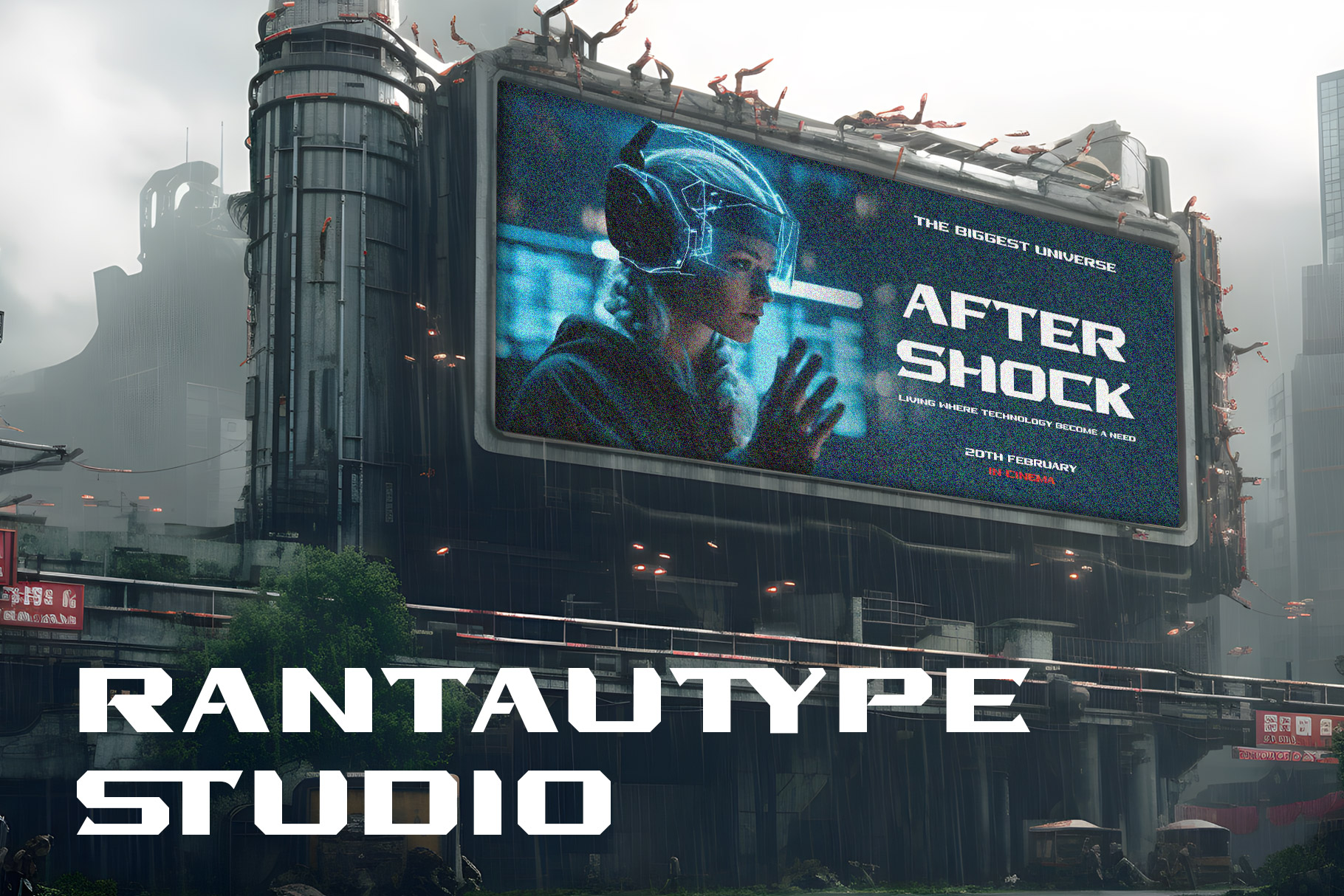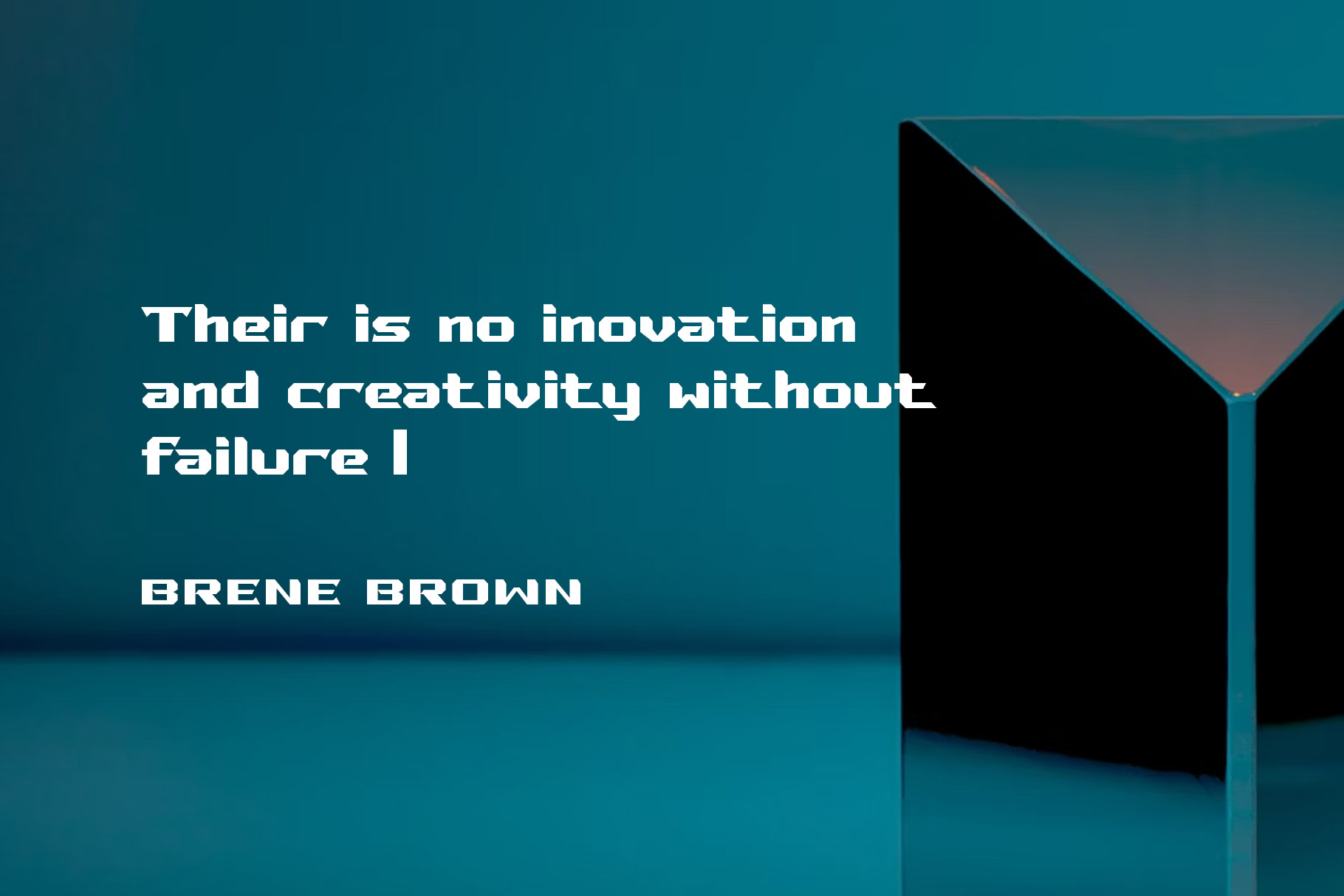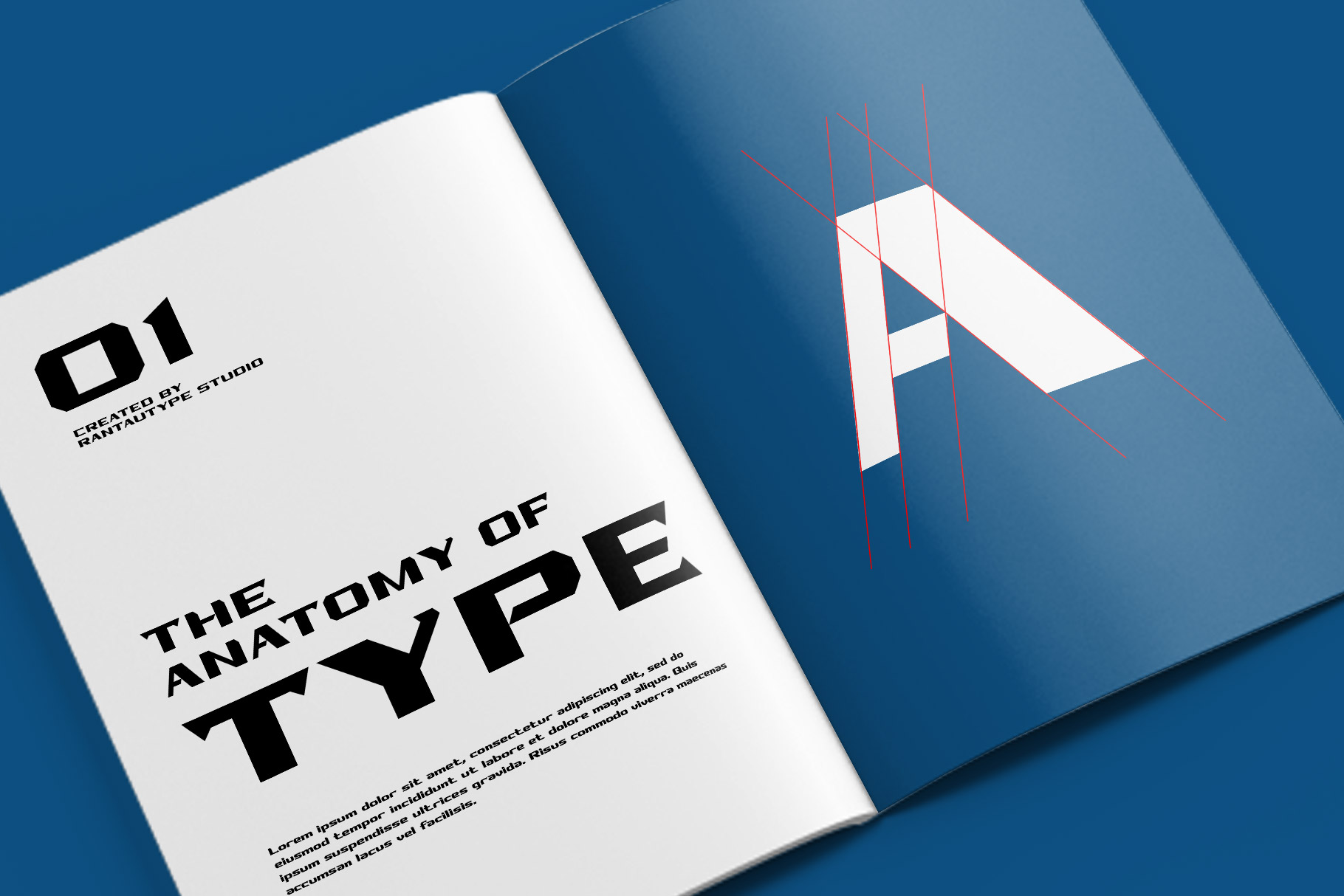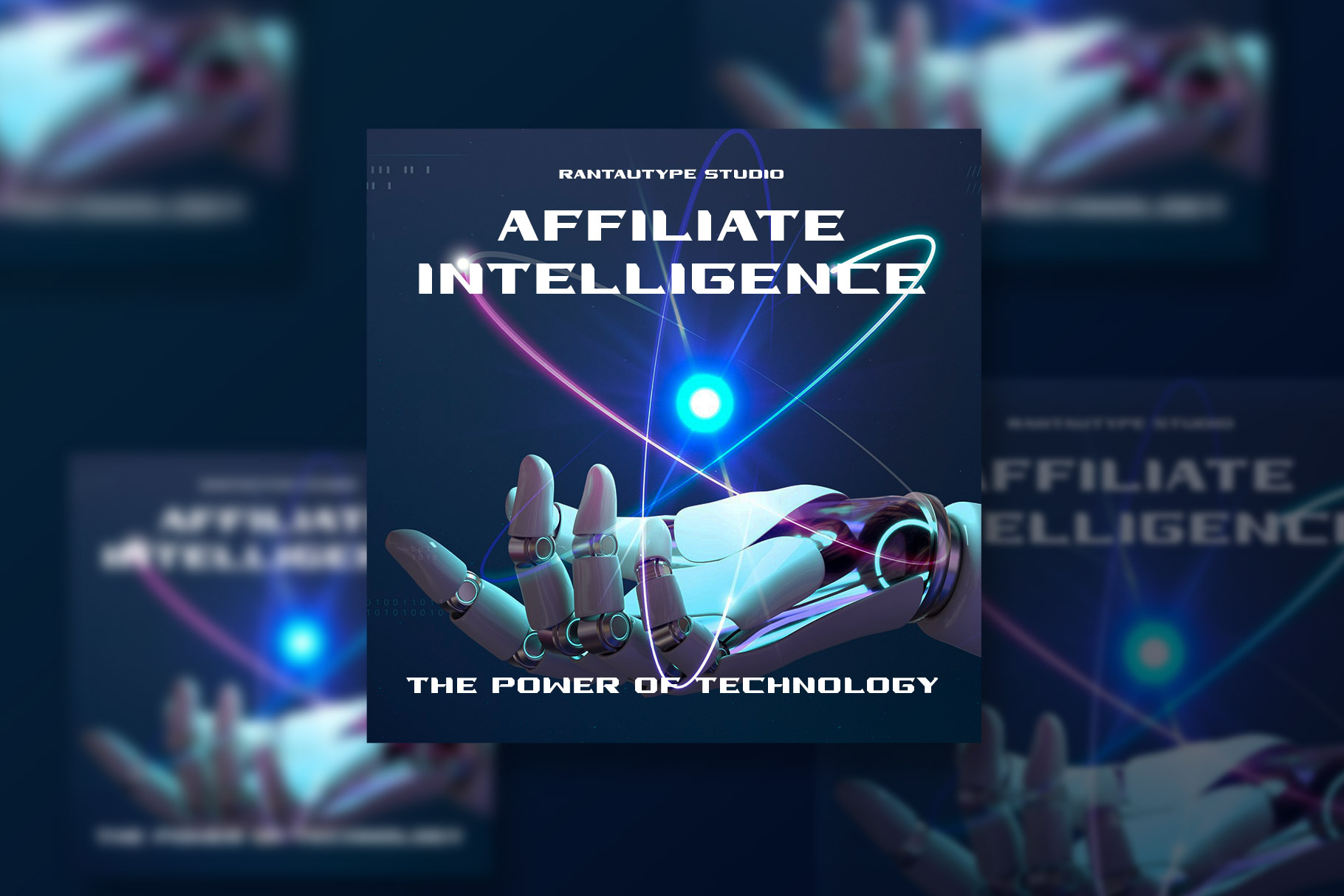
Fassero Futuristic Font
Fasseo is strong and bold font it’s inspired by futuristic font. Formed from a unique shape make this font Modern and sophisticated.  Fassero come with alternate, ligature  and support multilingual accent support.
Fasseo is a futuristic choice for any creative endeavor, creating modern, chic, lifestyle design such as logos, title, cover, film or movie, branding, display and magazine and more design with futuristic concept.